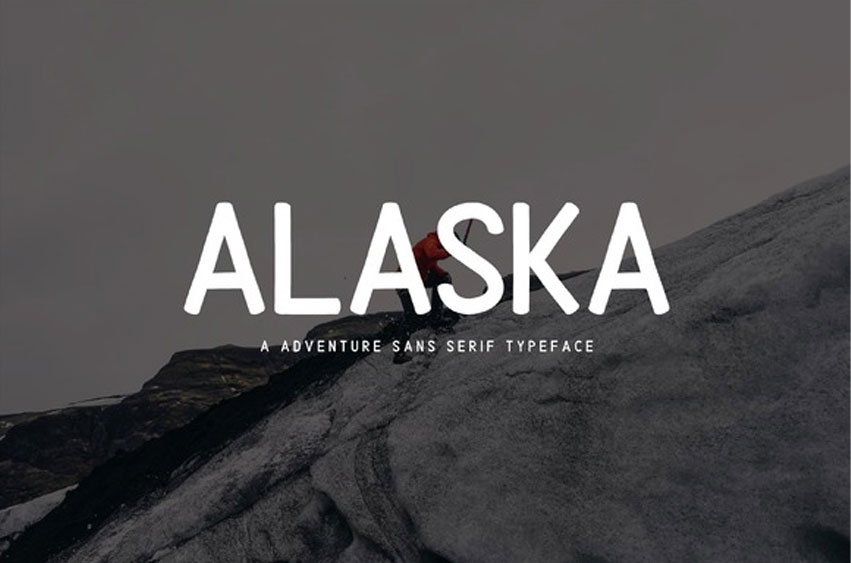
Alaska Adventure Font is a rounded Sans Serif font.
This font is well-suited for a variety of contexts, such as print design, promotional materials, or magazine layouts.